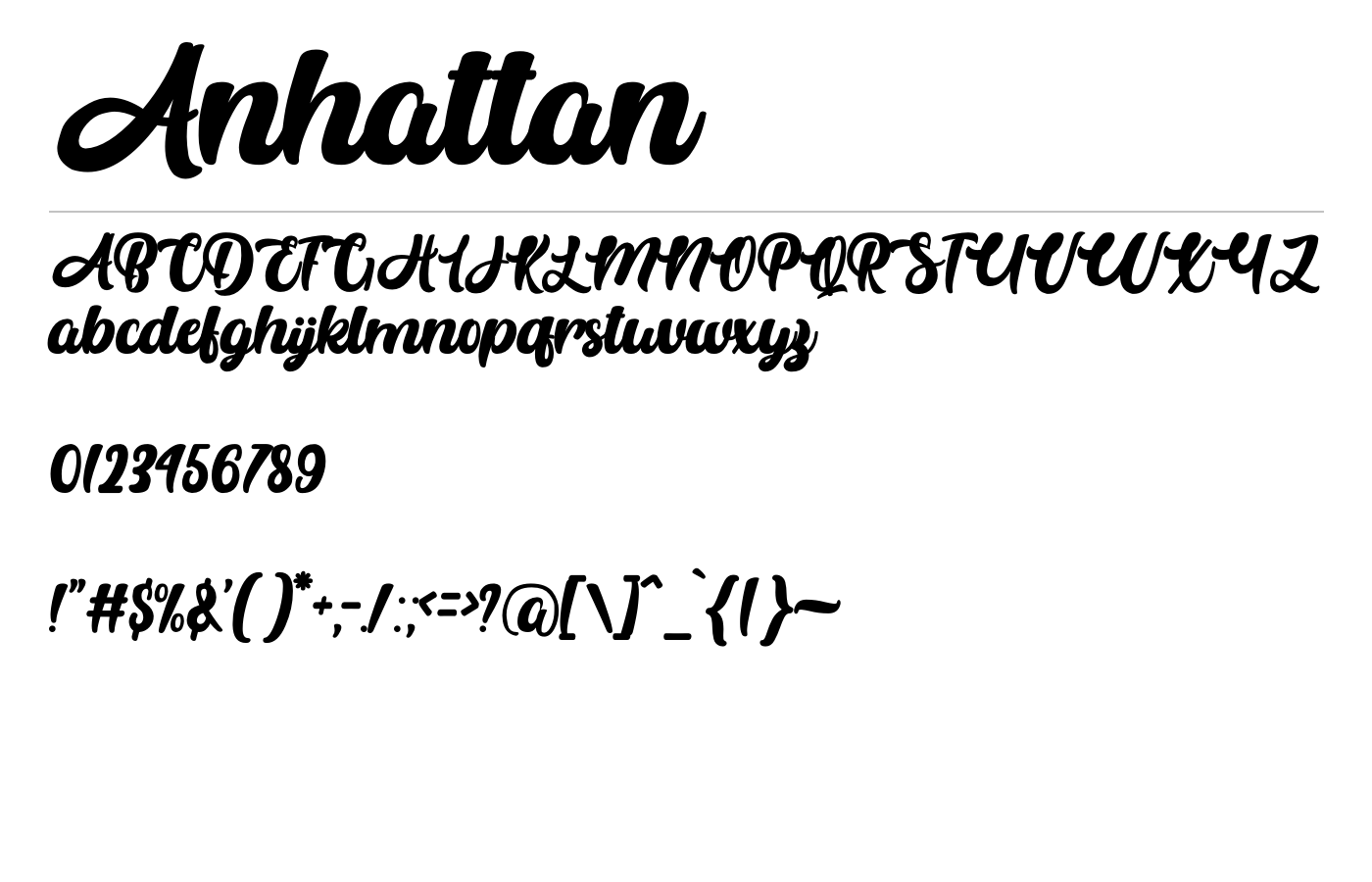
Anhattan is a bold, script-style font with a lively, handwritten feel, characterized by smooth, flowing lines and medium contrast in stroke weight. Its rounded, connected letterforms and upright italic slant make it well-suited for adding a warm, personal touch to branding, packaging, headlines, and invitations where a friendly yet confident style is desired. This font works best in designs that aim to communicate creativity and approachability with a stylish flair.
Anhattan Font